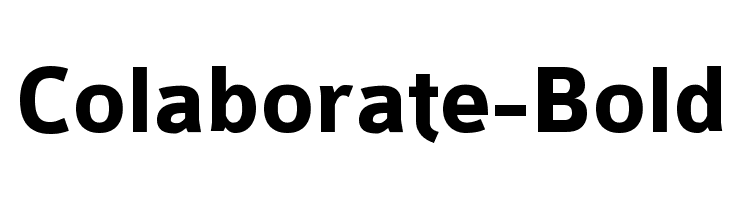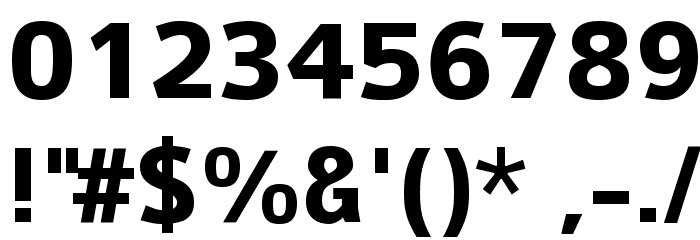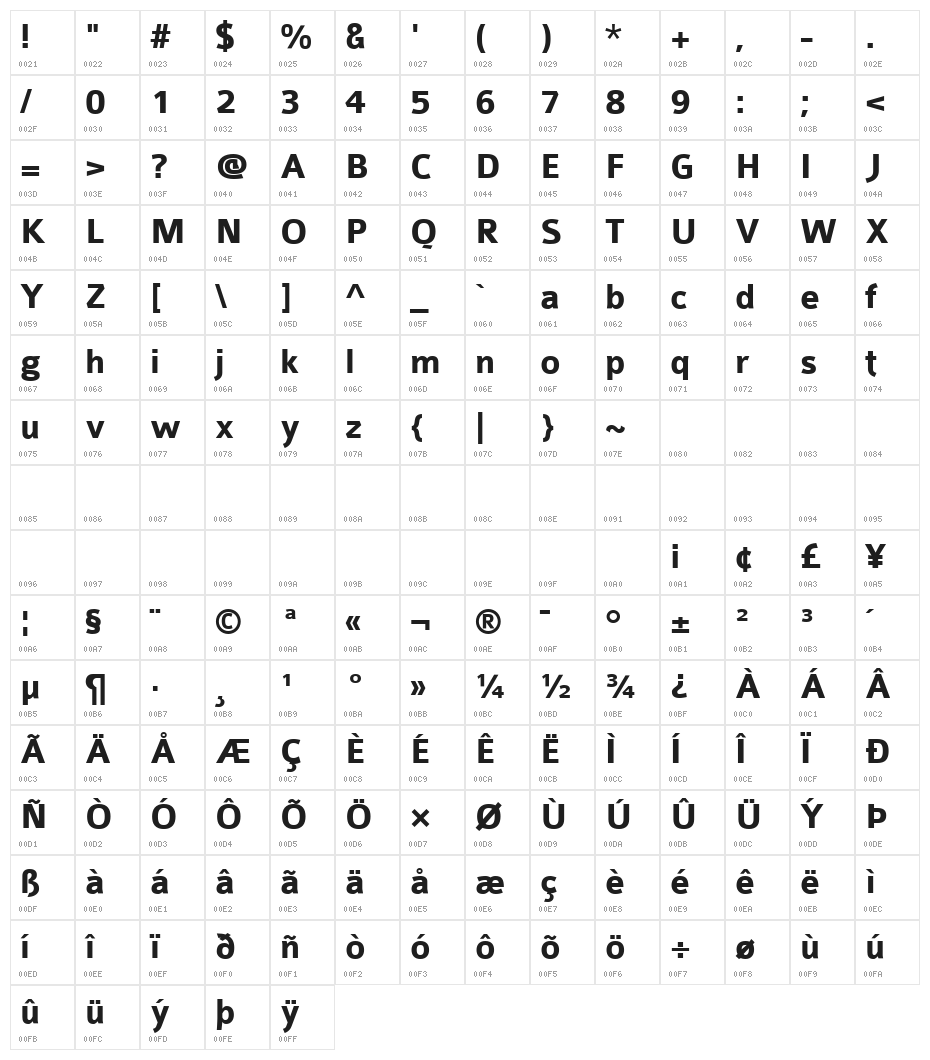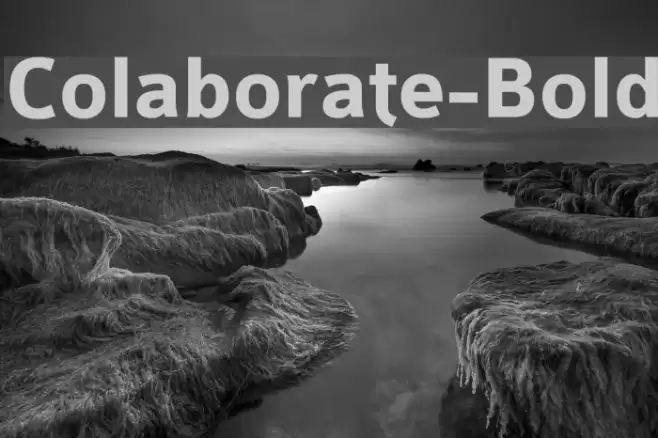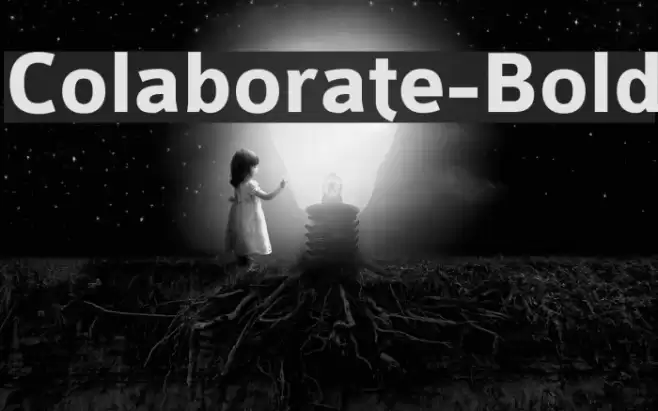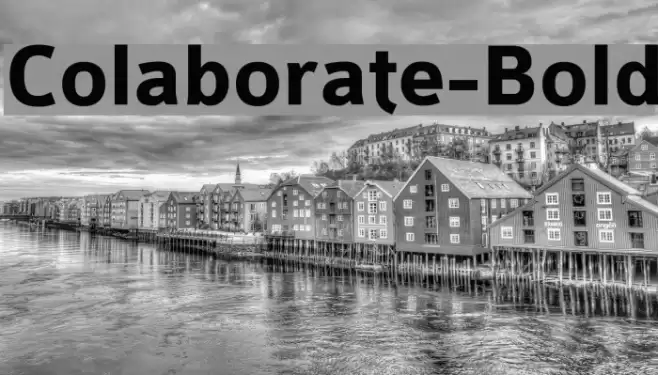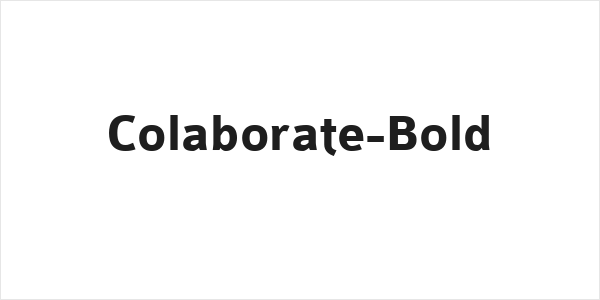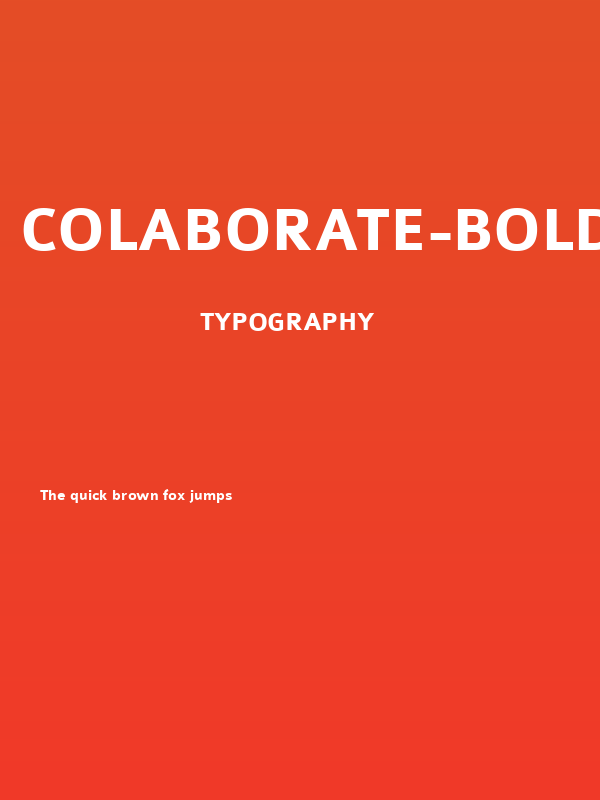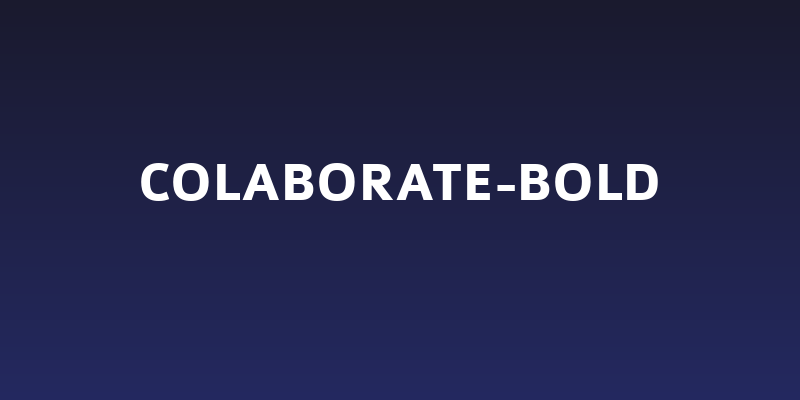
Colaborate-Bold Font
Colaborate-Bold Description
This font features a bold and modern sans-serif style with clean, geometric lines and uniform stroke widths. The characters are well-balanced, with a slightly condensed appearance that enhances readability. The uppercase letters are strong and assertive, while the lowercase letters maintain a friendly and approachable look. The numerals are clear and easy to distinguish, making them suitable for various applications. Special characters are included, offering versatility for different design needs. Overall, this font exudes a contemporary and professional vibe, ideal for making a bold statement.
Use CaseHeadlines, Logos, Branding
Proposed ProjectsIdeal for branding, advertising, headlines, and digital content where a strong, modern impression is desired.